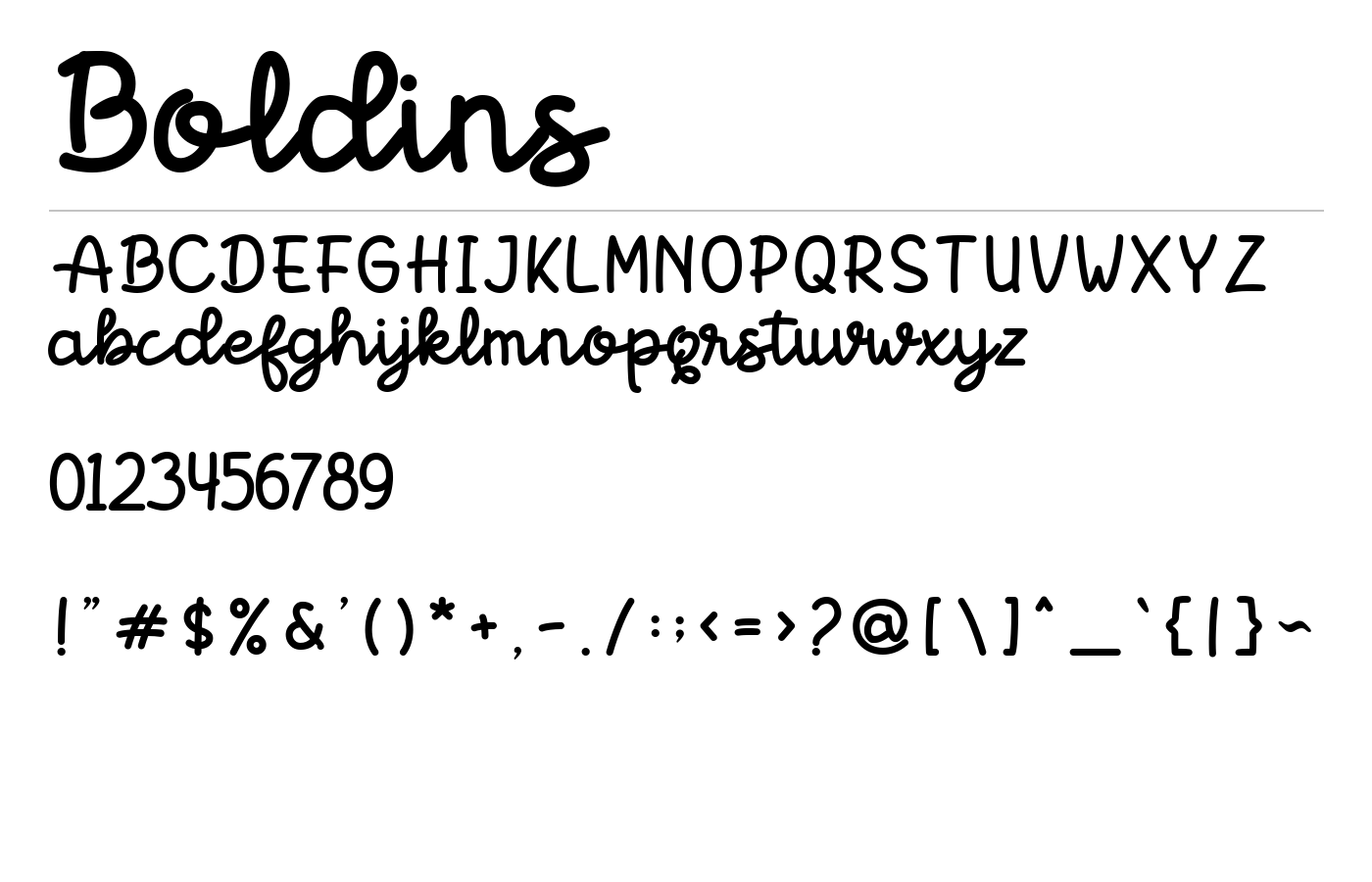
Boldins is a playful and approachable handwritten sans serif font with a bold weight and smooth, rounded strokes. Its mix of casual script lowercase letters and more structured uppercase forms makes it perfect for friendly branding, invitations, and creative projects that want to convey warmth and personality. This lively font works well in both headlines and informal text, lending a charming, welcoming feel to any design.
Boldins Font